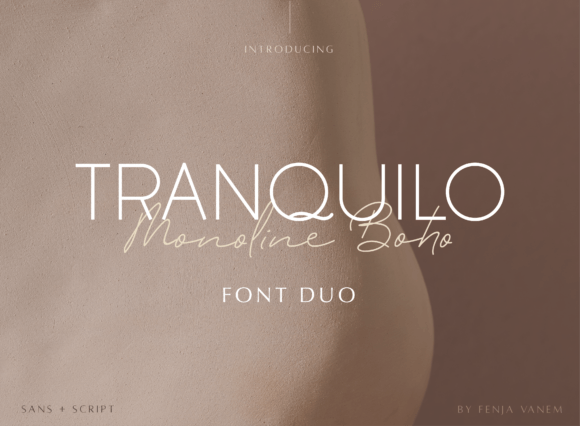
Introducing Tranquilo Monoline Boho Font, the epitome of style and elegance. Created by the renowned designers at Pretty Decadent, this font family is a must-have for anyone looking to add a touch of sophistication to their designs.
With its minimalistic and luxurious design, Tranquilo Monoline Boho is the perfect combination of a sleek sans-serif and an elegant script. Each letterform is meticulously crafted to perfection, exuding a sense of refinement that will captivate anyone who lays eyes on it.
Whether you're working on branding, editorial design, or high-end products, this font duo is the ultimate choice. Its minimalist yet luxurious aesthetic will effortlessly elevate any design project, setting it apart from the rest.
But what sets Tranquilo Monoline Boho apart from other fonts? It's the attention to detail and the inclusion of delightful glyphs and swashes. Thanks to its PUA encoding, accessing these special characters is a breeze, allowing you to create truly unique and eye-catching designs.
Imagine the impact your designs will have when you incorporate Tranquilo Monoline Boho Font. Each stroke and curve exudes sophistication, leaving a lasting impression on your audience. From tattoos to logos, this font family is versatile and adaptable, making it suitable for a wide range of projects.
Let your creativity flow and embrace the endless possibilities that Tranquilo Monoline Boho Font has to offer. Its timeless elegance will transcend trends, ensuring that your designs stand the test of time.
Experience the beauty of Tranquilo Monoline Boho Font today and let your designs speak volumes. Elevate your creativity and make a statement that will resonate with your audience. Don't settle for ordinary – choose extraordinary with Tranquilo Monoline Boho Font.